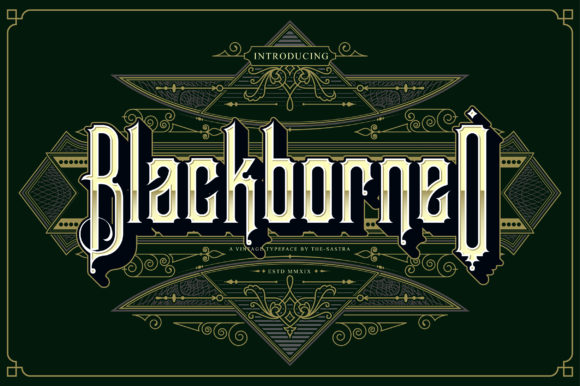
This rich and bold display font has distinct characteristics that instantly caught my attention. Its vintage feel, updated with a modern twist, made it an instant contender for my project. I was excited to dive deeper and explore what made BlackBorneo so special.
An Honest Review of BlackBorneo Font
- ✨ Unique Character: BlackBorneo has a distinct personality that sets it apart from other display fonts.
- ✅ Versatility: It can be used for a wide range of design projects, from branding to advertising.
- 💥 Impactful: The bold and rich texture of BlackBorneo makes it perfect for headlines and titles.
- 🎨 Design Flexibility: It comes with a range of OpenType features, glyphs, and stylistic alternates.
While BlackBorneo is an excellent font, there are a few things to keep in mind:
- 🤔 Legibility at Small Sizes: Like many display fonts, BlackBorneo can become difficult to read at smaller sizes.
- ⚠️ Overuse: Its bold nature means it can quickly overwhelm the design if overused.
The Backstory of BlackBorneo Font
BlackBorneo was designed with the intention of blending vintage charm with modern style. The designer aimed to create a font that would stand out in any design project while still evoking a sense of nostalgia. Inspired by the rich textures of classic typography, BlackBorneo brings a unique personality to the table.
Q: What makes BlackBorneo Font unique?
A: BlackBorneo’s distinct characteristics, such as its rich texture and modern twist on a vintage feel, make it stand out.
Q: Is BlackBorneo suitable for body text?
A: While BlackBorneo can be used for body text, its bold nature makes it more suitable for headlines and titles. For body text, consider a more readable font.